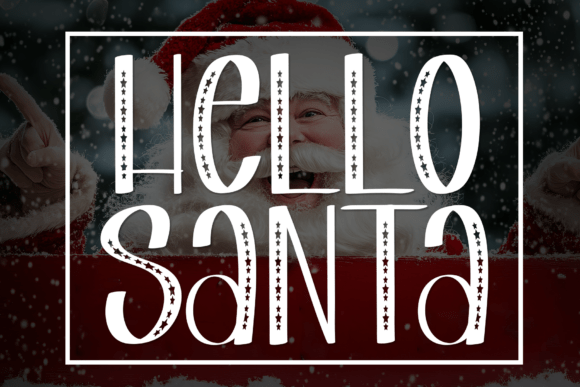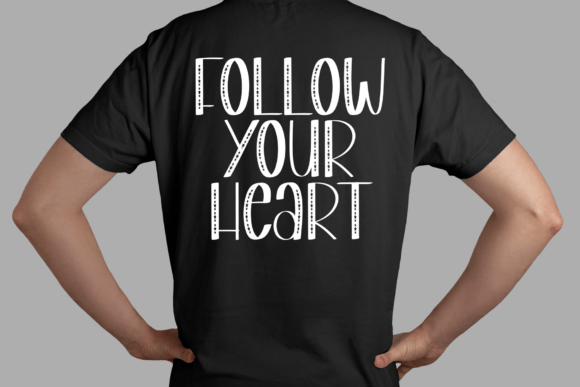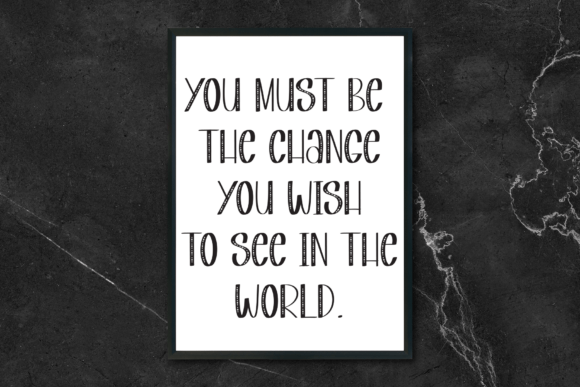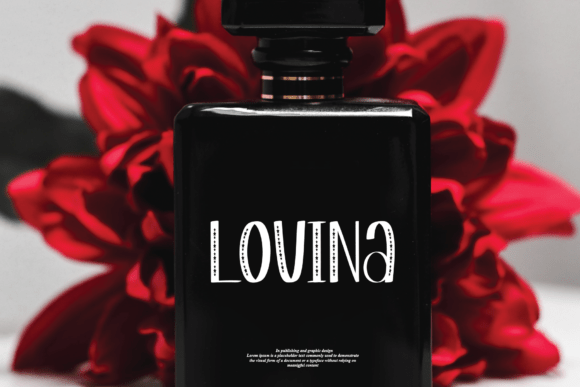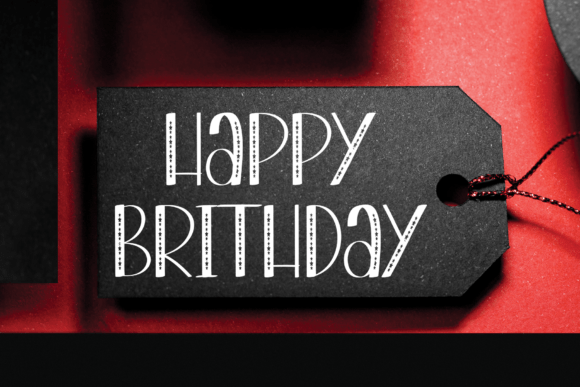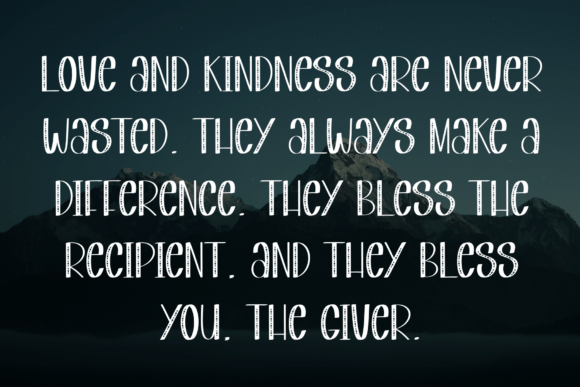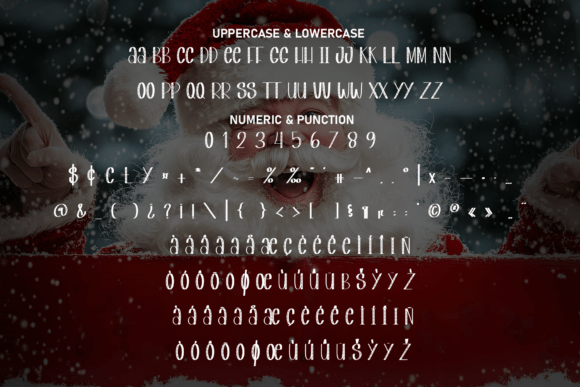
A Font That Says It All
Have you ever stared at a blank card or invitation, struggling to put into words the emotions that fill your heart? We’ve all been there – searching for the perfect phrase, the right font, and the perfect way to express our love and gratitude. And then, it hits you – the perfect font that brings your words to life.
Meet the Hello Santa Font, a specially handcrafted font designed to evoke warmth, tenderness, and friendliness. This enchanting font is perfect for romantic wedding invitations, heartwarming greeting cards, and any project that requires a touch of love and affection. For designers, Hello Santa Font offers a unique opportunity to add a personal touch to their work, making it stand out from the crowd.
With its captivating warmth and lighthearted spirit, Hello Santa Font is the perfect addition to any creative project. Whether you’re a seasoned designer or a DIY enthusiast, this font is sure to bring your words to life and leave a lasting impression on your audience.
Hello Santa Font Key Features
- Font Family: A unique, playful font designed specifically for the holiday season, perfect for creating festive and fun designs.
- Unique Characteristics: Features a fun, handwritten style with bold lines and festive flourishes, perfect for adding a touch of whimsy to holiday designs.
Hello Santa Font Review
Overall, I think the Hello Santa Font is a great addition to any holiday design project. ✨ The font’s playful and whimsical feel is perfect for capturing the spirit of the season. It’s also surprisingly versatile, working well in a variety of contexts from festive advertisements to fun holiday cards.
- Playful and Whimsical: The font’s unique design elements, such as the distinctive ‘S’ and ‘A’, really make it stand out.
- High-Quality:** The font is well-designed and rendered, with clear lines and smooth curves.
- Good Versatility: As mentioned, the font works well in a variety of contexts, from festive to fun.
However, there are a few limitations to consider. ⚠️ The font may not be the best choice for formal or professional applications, as it can come across as a bit too playful or childish. Additionally, some of the more intricate elements of the font may be difficult to read at very small sizes.
Overall, I think the Hello Santa Font is a fun and effective choice for holiday design projects. While it may not be the best fit for every application, it’s definitely worth considering for any project that needs a playful and festive touch.
Tips for Getting the Most Out of “Hello Santa Font”
Use “Hello Santa Font” for festive and playful designs, such as Christmas cards, gift tags, and holiday party invitations.
Combine “Hello Santa Font” with other festive fonts and graphics to create a cohesive and fun design.
Experiment with different font sizes, colors, and styles to add visual interest to your design.
“Hello Santa Font” is perfect for:
Christmas cards and gift tags
Holiday party invitations and decorations
Playful and festive social media graphics
Children’s birthday party invitations and decorations